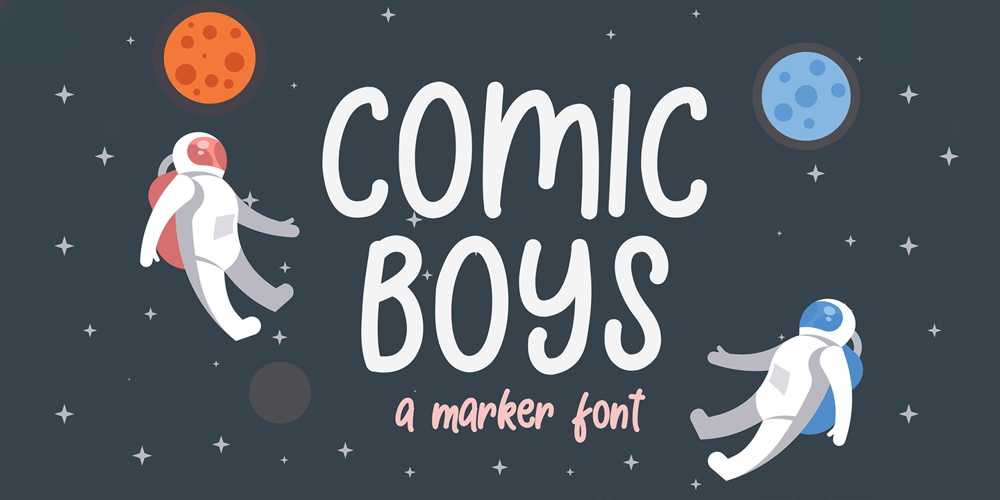
Comic Boys Font Family was designed by Virgiawan Listanto and published by Stringlabs Creative Studio. Comic Boys contains 1 styles and family package options. Comic Boys embodies fun, quirkiness and authenticity. This enchanting display font will turn any creative idea into a true standout.